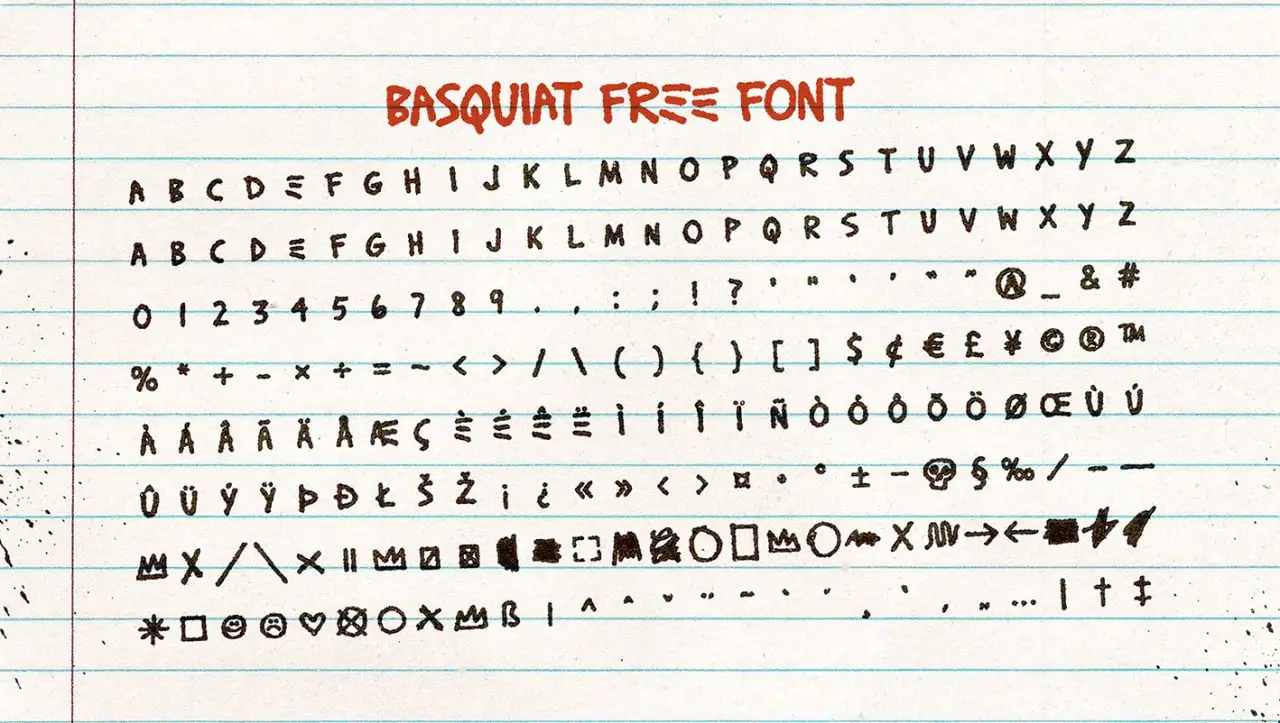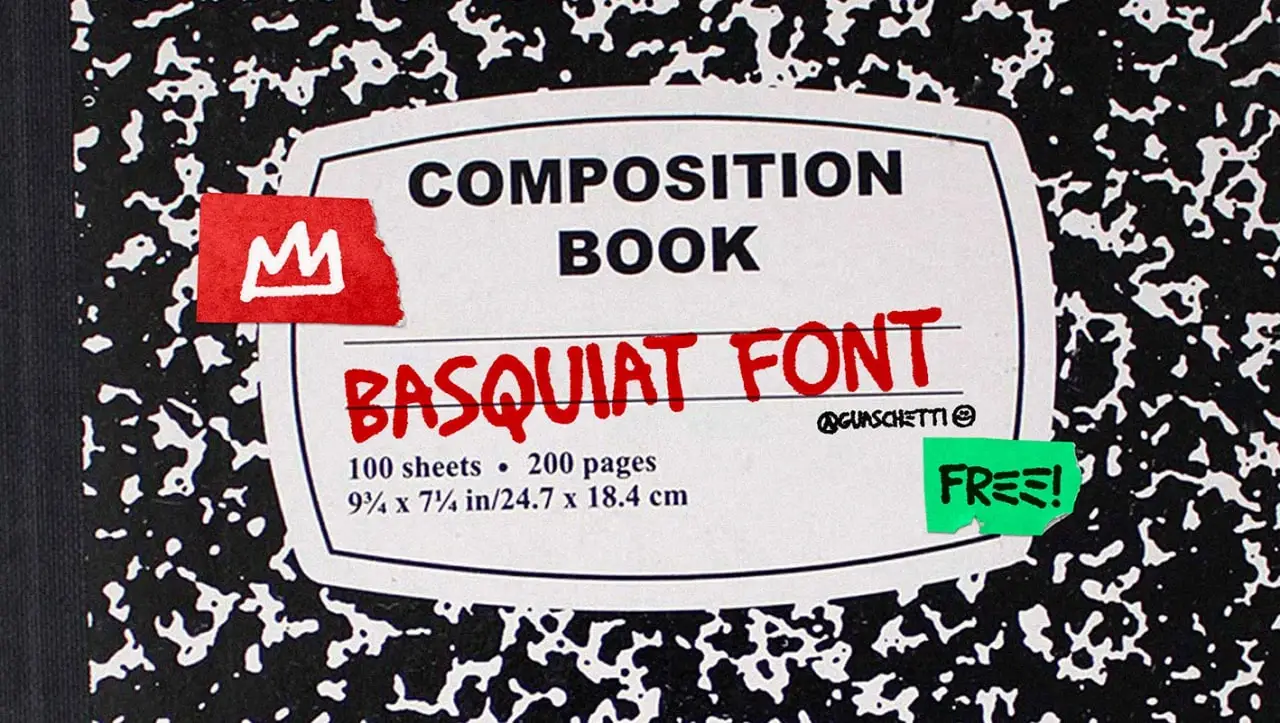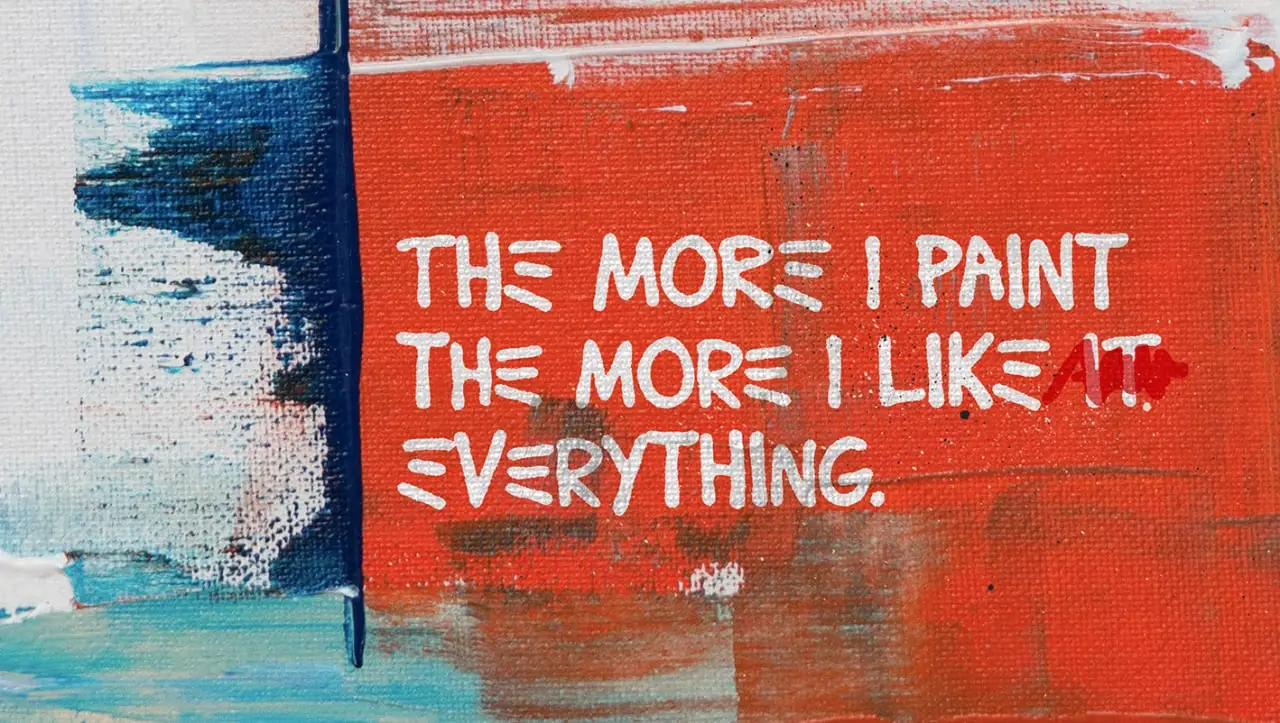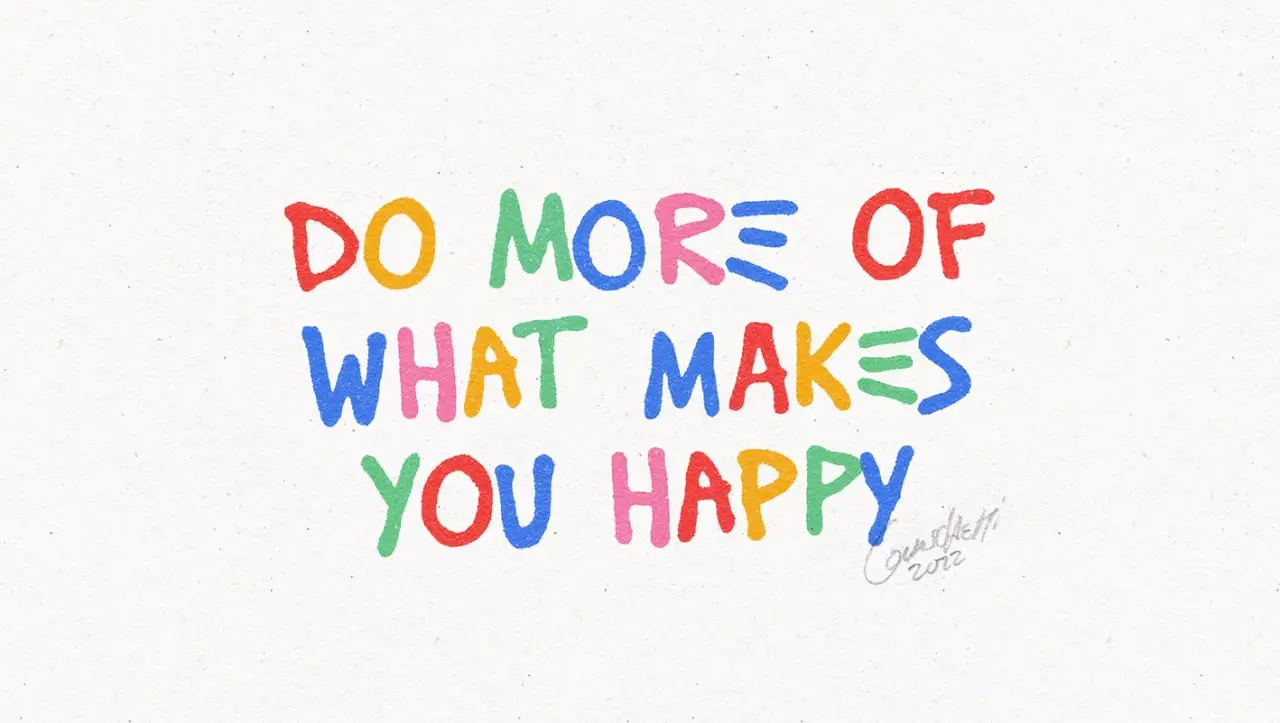
Basquiat Font
The Basquiat Font is a unique typeface inspired by the artistic style of Jean-Michel Basquiat. This font captures the essence of street art with its bold strokes and expressive character forms, making it ideal for creative projects that demand a distinctive look.
• Multiple font weights for versatility
• Special characters and symbols included
• Hand-drawn aesthetic for an organic feel
• Style: Display, Handwritten
• Character Set: Latin
• Perfect for branding projects, logos, and posters
• Great for web design, especially in headers and titles
• Ideal for print materials like flyers and brochures